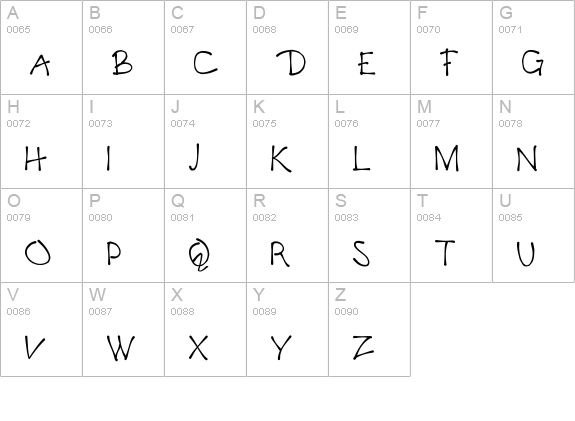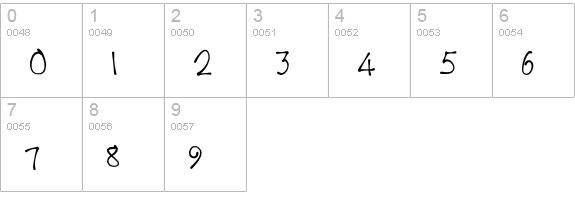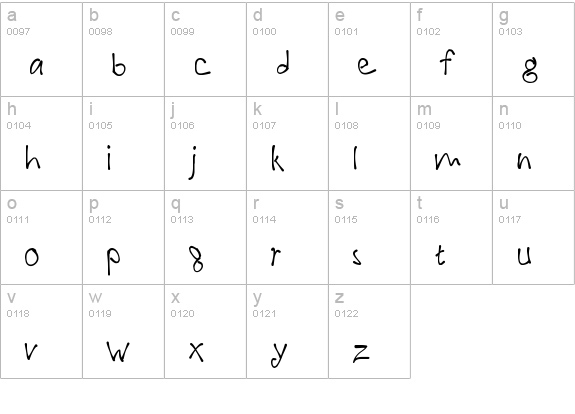
!PaulMaul Font Details
Introducing the captivating and versatile !PaulMaul font! This modern and stylish typeface offers a perfect balance between elegance and readability, making it ideal for a wide range of design projects. With its unique character shapes and fluid lines, !PaulMaul font adds a touch of sophistication to any text or graphic layout. What's even better is that this exquisite font is available for free download at FontsMarket.com! Now you can elevate your designs without breaking the bank. Whether you're working on branding, advertising, invitations, or any other creative project, !PaulMaul font is sure to make a lasting impression. Don't miss out on the opportunity to enhance your designs with this exceptional font. Download !PaulMaul font today and unleash your creativity like never before!